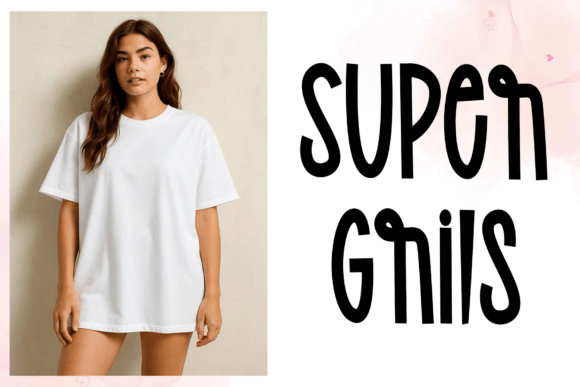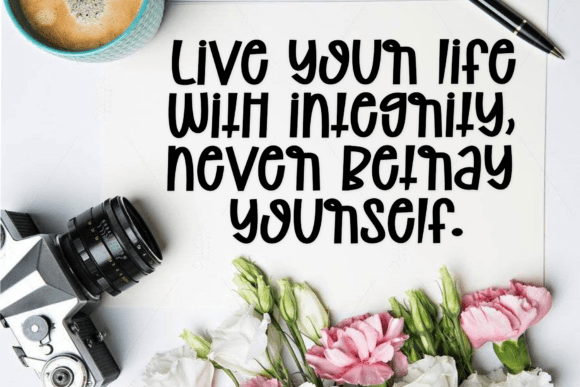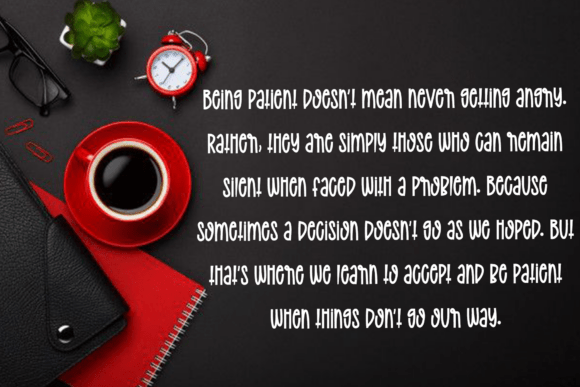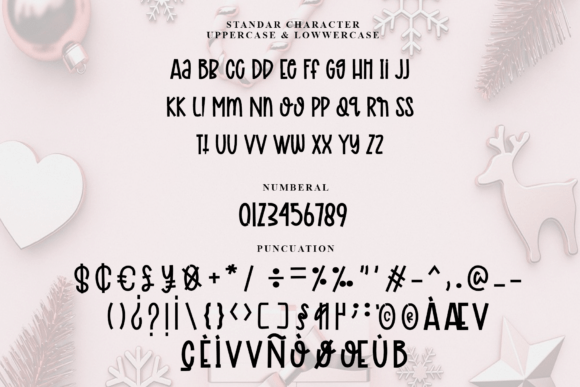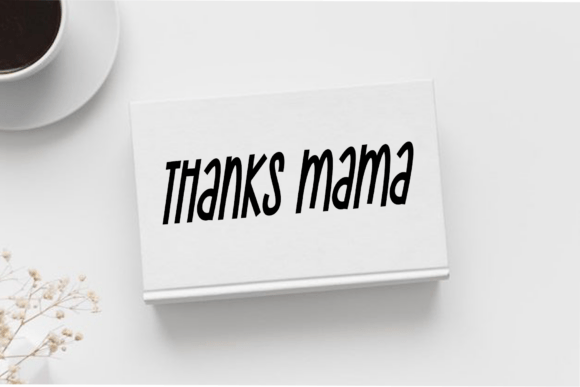
Introduction to Peache Farmhouse Font
Have you ever stumbled upon a beautifully handwritten quote on a friend’s Instagram post, and suddenly you’re inspired to create something special for your own project? I know I have. That’s exactly what happened when I discovered the Peache Farmhouse Font. This charming font has a way of making any design feel more personal and friendly, and I’m excited to share its story with you.
As a designer, you’re constantly on the lookout for high-quality design resources that can elevate your creative projects. The Peache Farmhouse Font is one of those rare finds that can add a touch of warmth and personality to any design. With its smooth strokes, natural curves, and easy-flowing letterforms, this font is perfect for quotes, invitations, branding, and social media posts.
Key Features of Peache Farmhouse Font
- High-quality, hand-drawn design perfect for creative projects, including invitations, quotes, and social media graphics.
- Features a unique, whimsical style that adds a touch of warmth and personality to any design project.
Honest Review: Peache Farmhouse Font
I recently stumbled upon the Peache Farmhouse Font, and I must say it’s a delightful addition to my design arsenal. As a designer, I’m always on the lookout for high-quality fonts that can elevate my creative projects.
The Peache Farmhouse Font is a beautiful, rustic script font that exudes a charming, vintage vibe. It’s perfect for projects that require a touch of whimsy and personality. One of the standout features of this font is its high quality, with crisp lines and smooth curves that make it a joy to work with.
- ✨ Beautiful, hand-drawn design that adds a touch of personality to any project
- ✨ High-quality, transparent background that makes it easy to use on any design surface
- ✨ Perfect for creative projects that require a vintage or rustic vibe
One limitation I’ve noticed is that the font can be a bit tricky to read at smaller font sizes. It’s not a deal-breaker, but it’s something to keep in mind when using this font in smaller applications.
Tips for Getting the Most Out of Peache Farmhouse Font
To get the most out of the Peache Farmhouse Font, use it in conjunction with a transparent background to create a clean and modern design. Experiment with different font sizes and styles to add depth and interest to your design.
The Peache Farmhouse Font is perfect for a variety of creative projects, including:
- Food blog designs
- Rustic wedding invitations
- Home decor designs
- Country-themed crafts